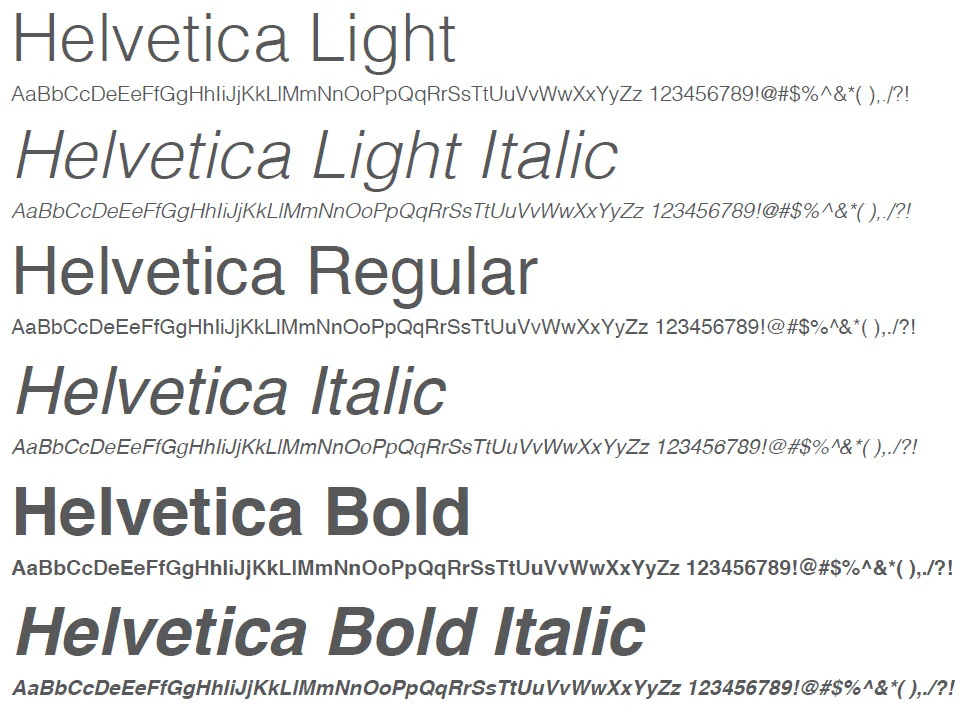
Typeface vs Font: What’s The Difference?
Have you noticed how often people use typeface and font hand in hand? You’d be surprised to know they are not the same! Below, we’ll cover the slight difference between typeface vs. font.
While there is some correlation in the meaning, the actual meanings are different! Knowing the difference is important because it helps you communicate effectively in design discussions and ensures you use the right tools for your creative projects.
But what’s the actual difference between typeface and font? Let’s find out.
What Is a Typeface?
A typeface means the overall design of characters, including letters, numbers, and symbols. The artistic and stylistic expression defines these character’s appearance, encompassing shape, stroke, weight, and serifs.
A typeface is often thought of as a “font family,” consisting of multiple fonts that share the same core design but may vary in weight (bold, light), style (italic, regular), or width (condensed, extended).
Well-known typefaces include Helvetica, Times New Roman, and Arial. Each typeface has a unique aesthetic that influences the tone and readability of the text.
What Is a Font?
A font is a specific weight, size, and style within a typeface. While a typeface refers to the overall design of the characters, a font represents the individual file or variation you use in your projects.
For example, Arial is a typeface, and Arial Bold 12pt is a font within that typeface. Fonts come in different styles, such as italic, bold, or regular, and different sizes, allowing for flexibility in design.
In the digital world, fonts are what you select and apply in software like Word or Photoshop, directly influencing the appearance of your text.
Typeface vs Font: Key Differences
We must understand the broader context now that we know the main differences. While typeface and font play crucial roles in typography, their functions and purposes differ significantly.
Let’s look at the difference between a font and a typeface.
Design vs Functionality
A typeface is the design of a set of characters, like letters, symbols, and numbers. It’s the creative blueprint that defines the visual style of the text, capturing details like stroke width, serifs, and character shapes.
A typeface is the artistic concept behind a family of related fonts. A font is a specific tool that can be used to implement a design in various contexts.
It refers to a particular style, size, and weight within the typeface, such as Arial Bold 14pt or Times New Roman Italic 10pt. Fonts are the practical application of the typeface, allowing you to convey the design’s intended tone and readability across different platforms. These are the major functionality differences between font and typeface.
Visual Representation
To better grasp the relationship between typeface and font, imagine a typeface as an umbrella that covers various fonts.
A visual diagram or chart would help illustrate this by showing the typeface at the top, with branching lines leading to its various fonts. For example, under the typeface “Helvetica,” you might see fonts like:
• Helvetica Regular: Standard weight, ideal for body text.
• Helvetica Bold: Heavier weight is used for emphasis or headlines.
• Helvetica Italic: Slanted style, often used for emphasis or stylistic variation.
Real-World Application
Understanding the distinction between typeface and font is crucial in design, particularly when making branding and print media decisions.
Impact On Branding
When choosing a typeface for a brand, you’re selecting the visual identity that aligns with the brand’s values and message. The typeface sets the tone, conveying everything from professionalism to creativity.
Print Media Considerations
Once the typeface is chosen, specific fonts are selected to use in different materials. For instance:
• Bold fonts are often used for headlines to grab attention.
• Regular fonts are ideal for maintaining readability in body text.
• Italic fonts can be used for emphasis within the body text.
Conclusion – Typeface vs Font
Knowing the difference between a font and a typeface is essential for clear communication and design. A typeface is an overall pattern that determines how characters appear, whereas a font is a particular style and size inside that pattern.